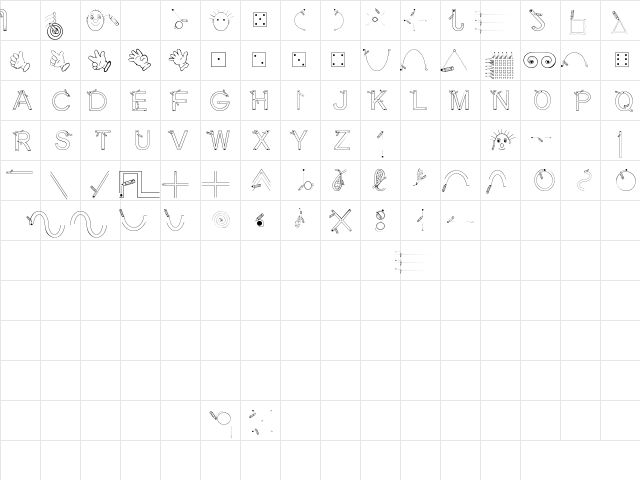
Maternellecolor graphisme Regular
Design Context for Maternellecolor graphisme Typeface
Maternellecolor graphisme is a composed and adaptable typeface that performs quietly and consistently across a wide range of design contexts.